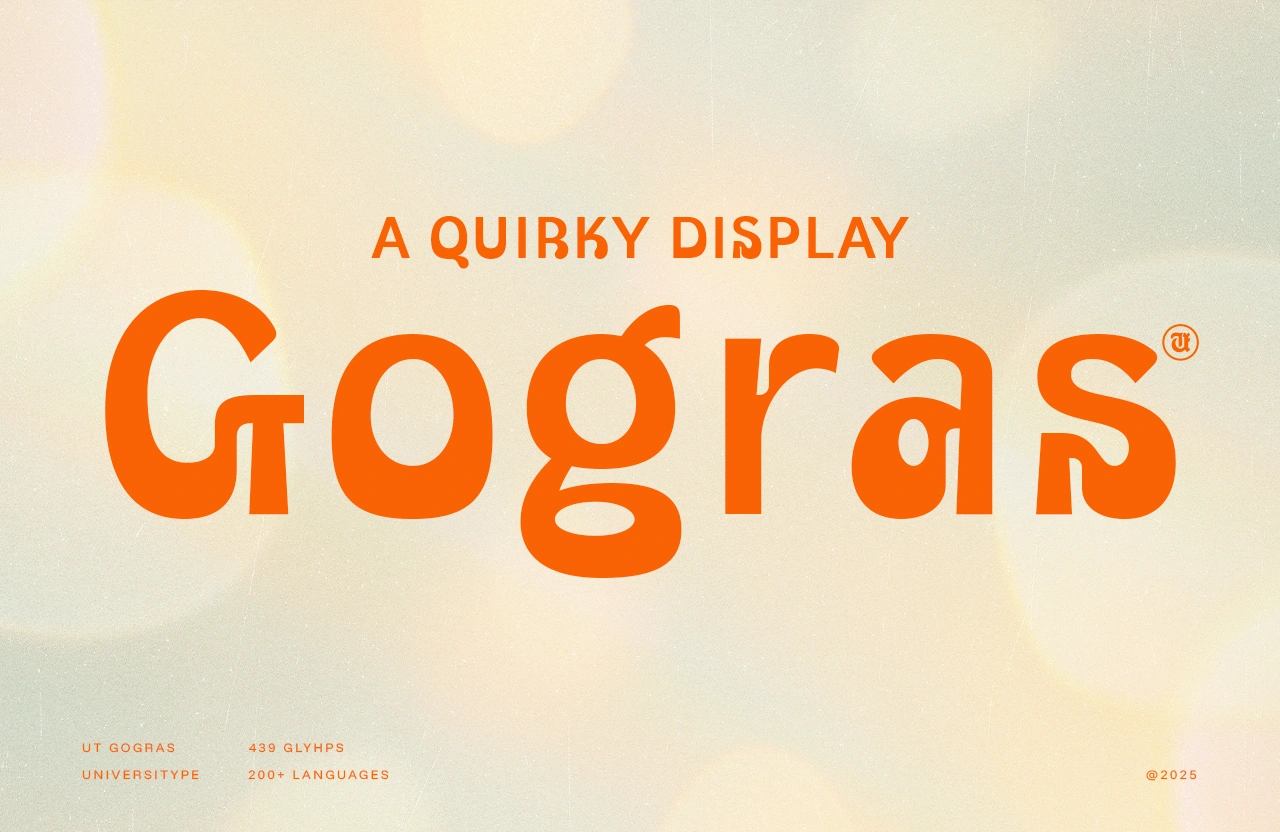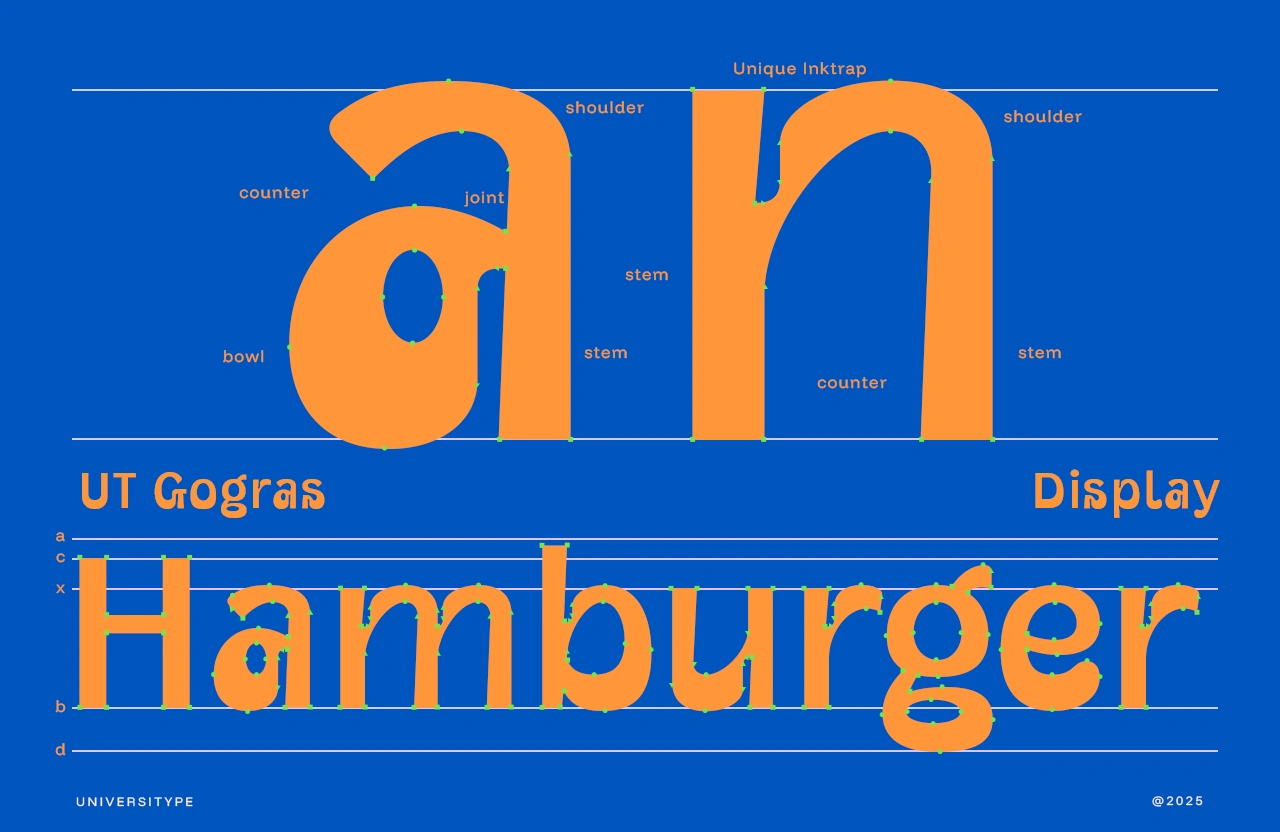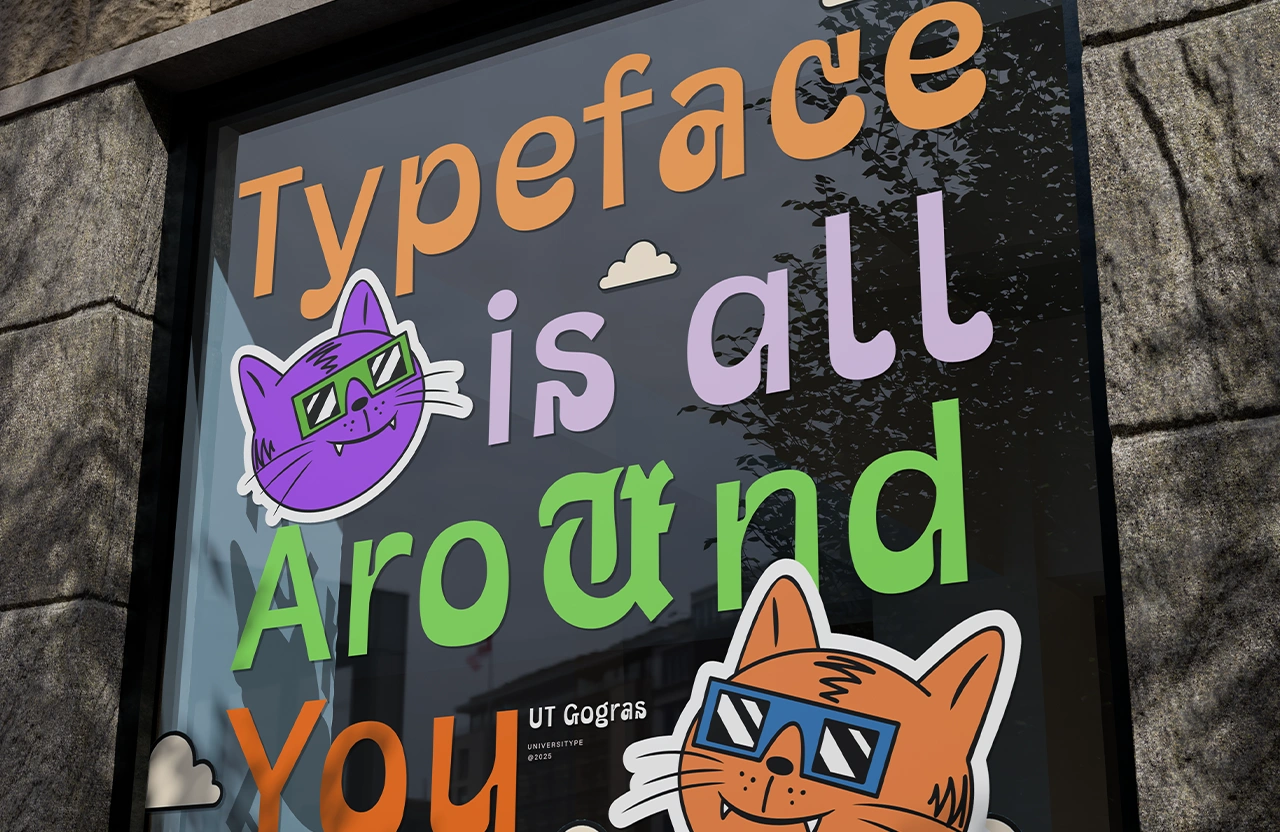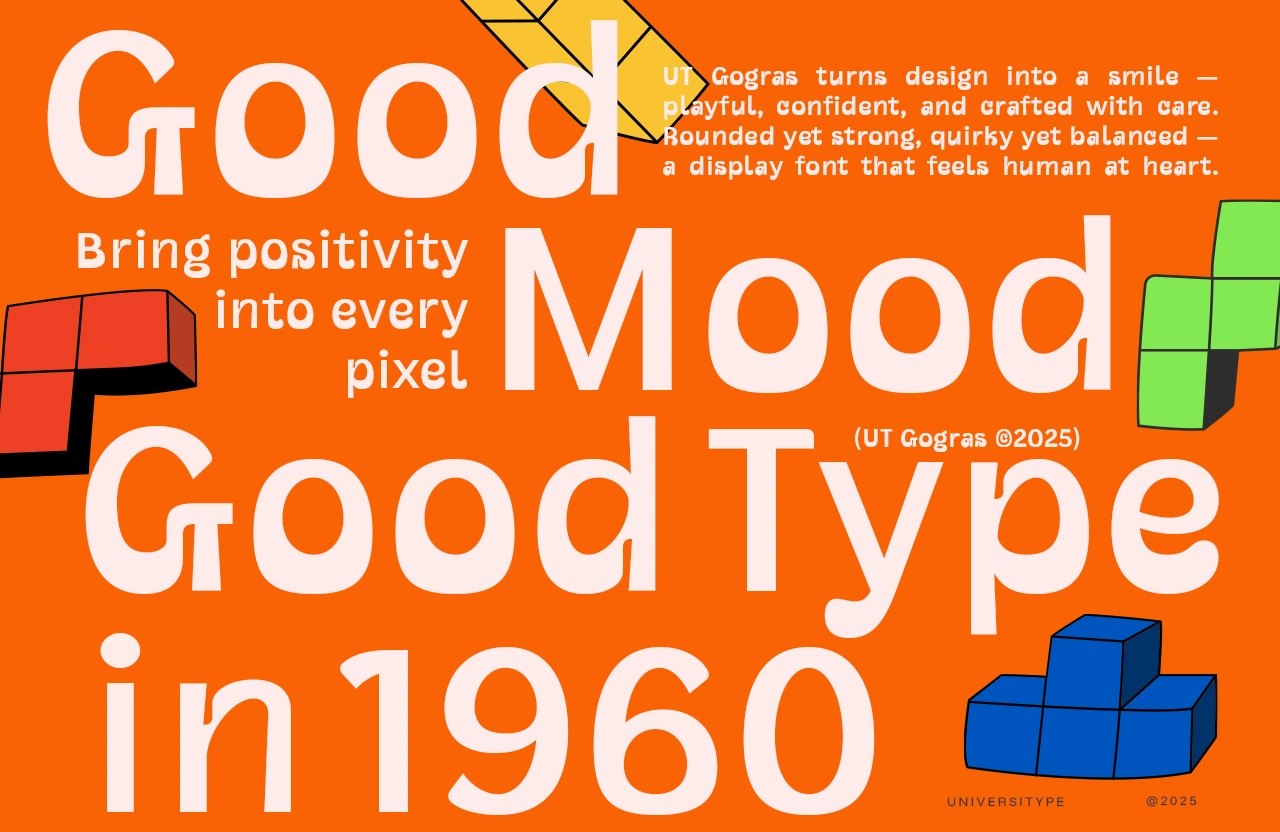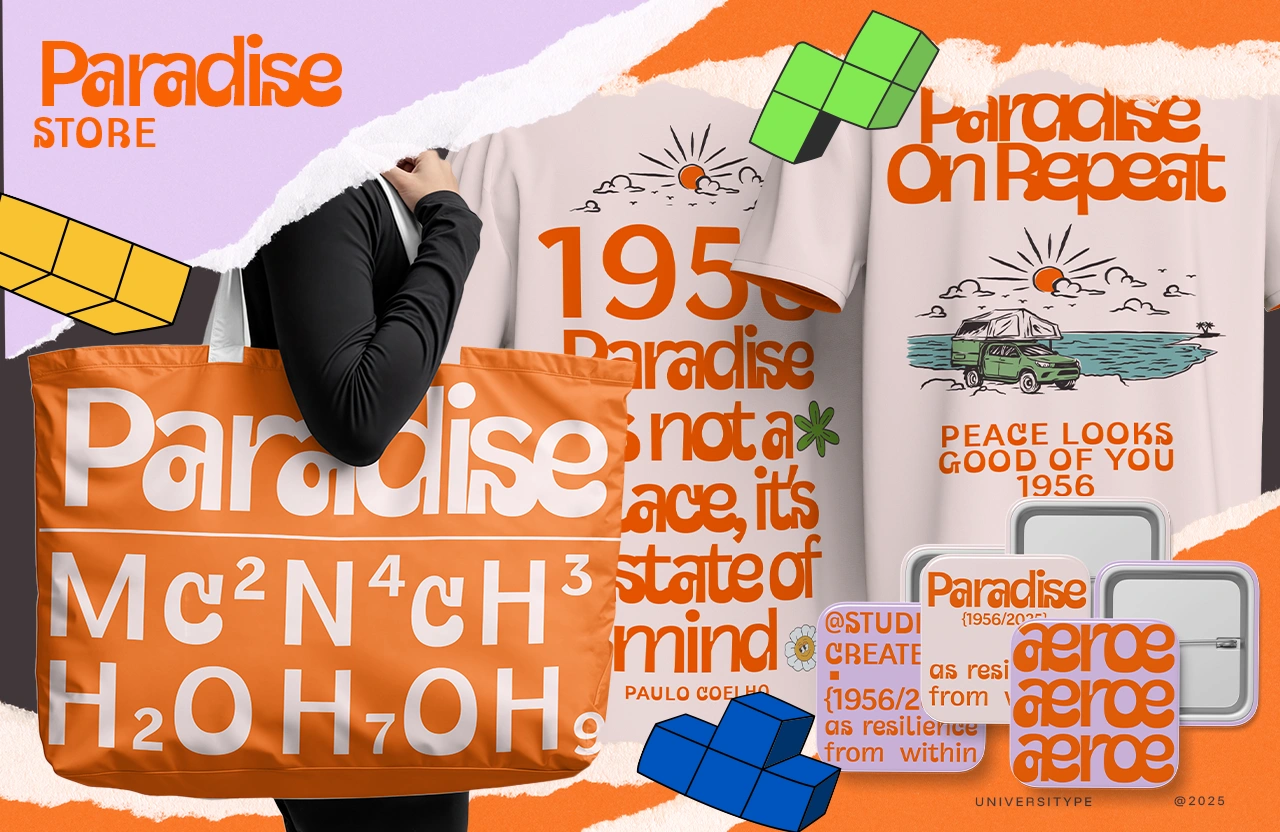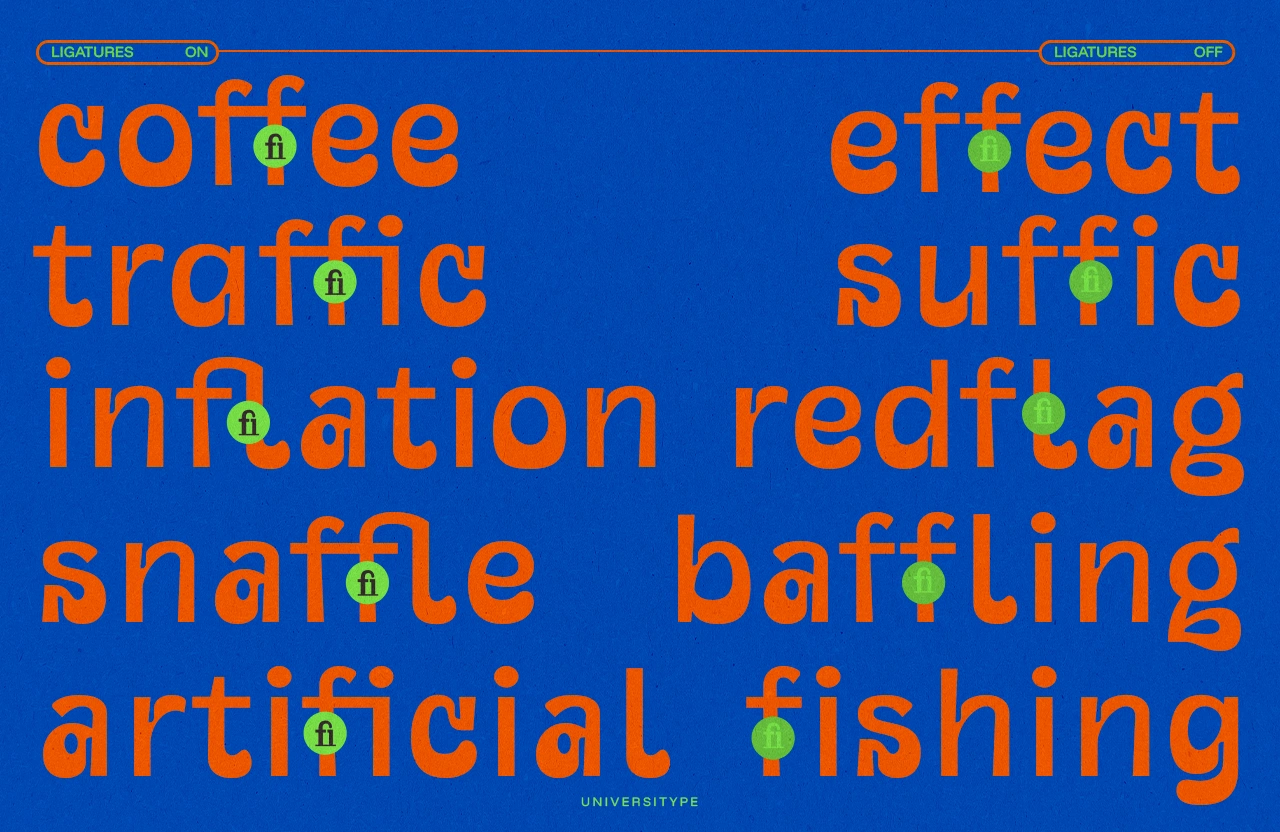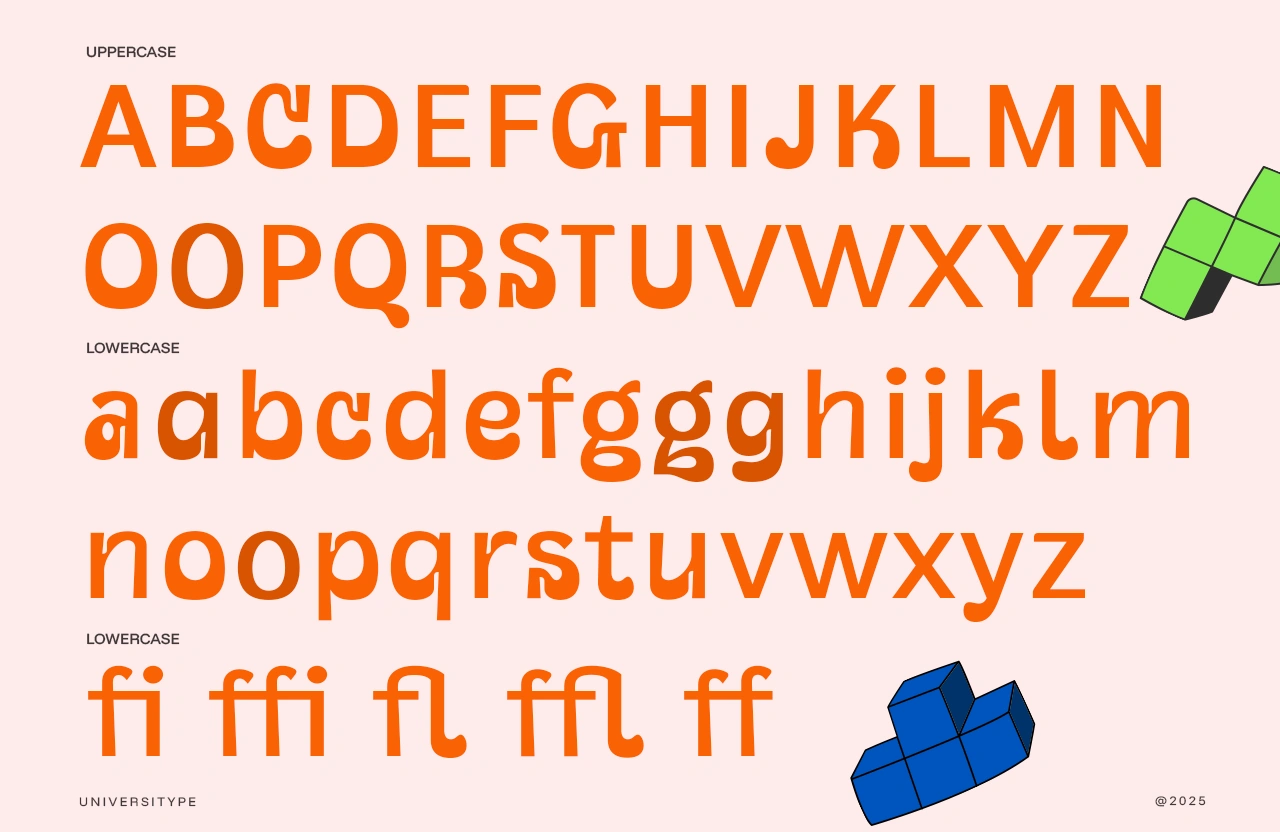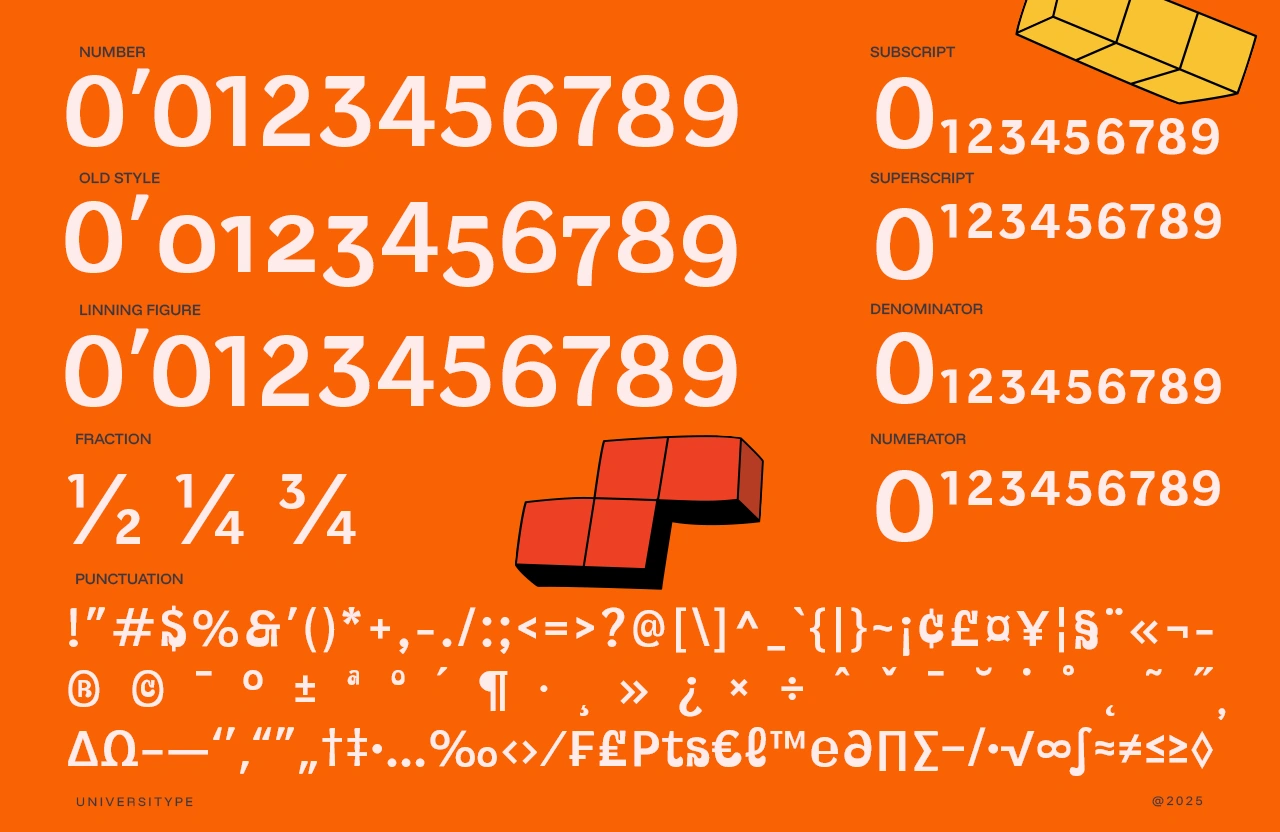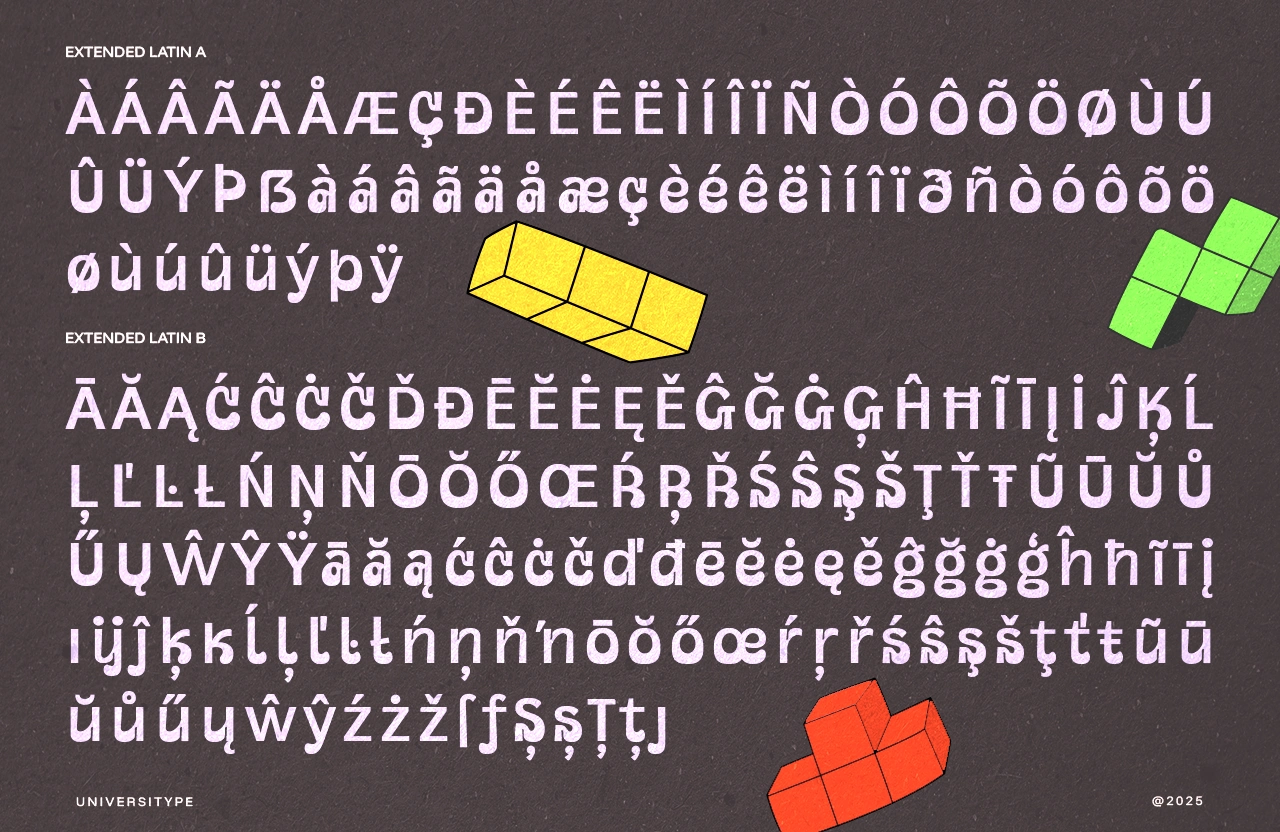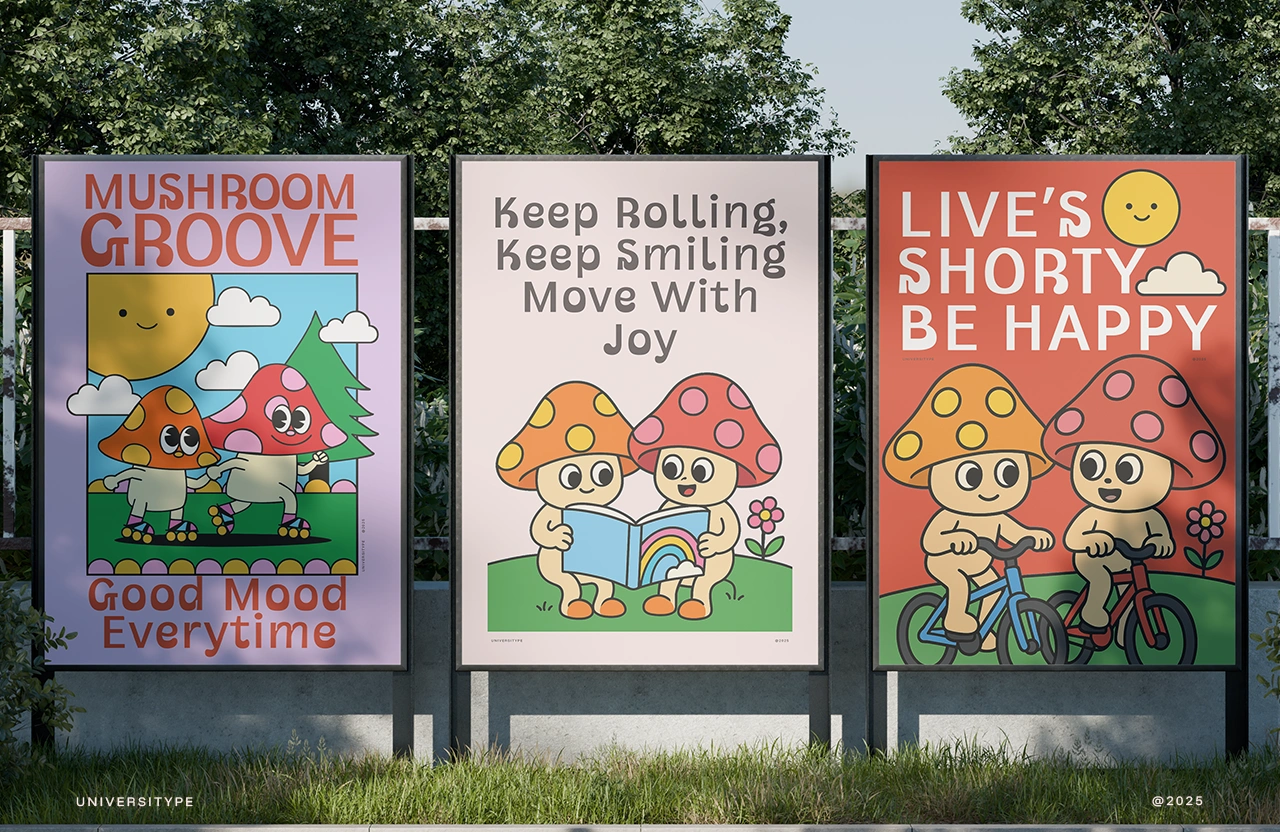
UT Gogras
UT Gogras is a bold, playful display font with a charming sense of awkwardness. Built with chunky strokes, soft curves, and unexpected details, it brings a joyful, slightly mischievous feel to any design it touches.
UT Gogras – A Quirky Display Font
UT Gogras is a bold, playful display font with a charming sense of awkwardness. Built with chunky strokes, soft curves, and unexpected details, it brings a joyful, slightly mischievous feel to any design it touches. The letterforms feel friendly and confident, with quirky joints, rounded terminals, and subtle ink traps that add personality without hurting readability.
This font loves being seen. Headlines, logos, posters, packaging, and social graphics all get a boost of character when UT Gogras steps in. It’s expressive, warm, and designed to leave a lasting impression at first glance.
Perfect for brands that want to feel playful, confident, and approachable.
Key Features
• Quirky, chunky display style
• Rounded shapes with soft, friendly energy
• Unique ink traps and joints for added character
• Strong presence at medium to large sizes
• Carefully balanced proportions for visual rhythm
• Distinctive uppercase and expressive lowercase
Inspiration Behind the Design
UT Gogras was inspired by the idea of embracing imperfections. Instead of chasing perfect geometry, this font celebrates odd shapes, playful curves, and small surprises hidden in each letter. The goal was to create a display font that feels fun and confident, like a brand that doesn’t take itself too seriously but still knows exactly who it is.
Usage Suggestions
UT Gogras works best when it gets room to shine:
• Logo design
• Branding and visual identity
• Posters and flyers
• Packaging and product labels
• Social media graphics
• Editorial headlines
• Merchandise and apparel
Not recommended for long body text, but perfect for bold statements and short phrases.